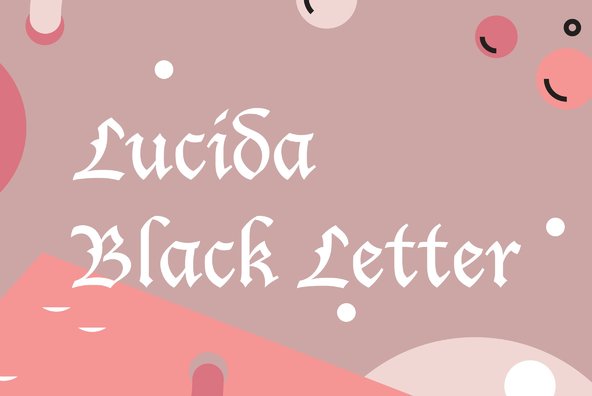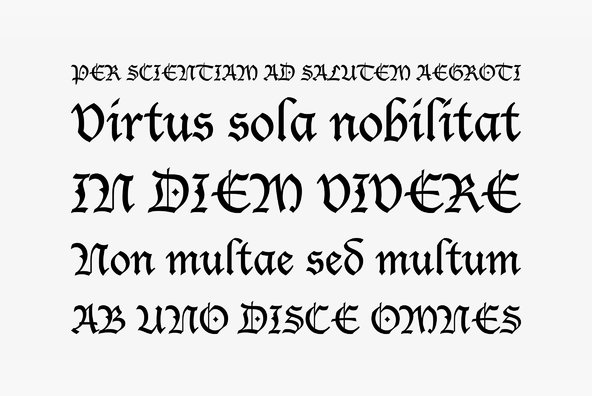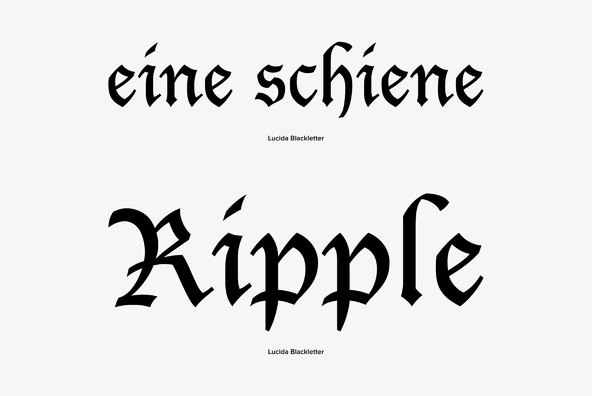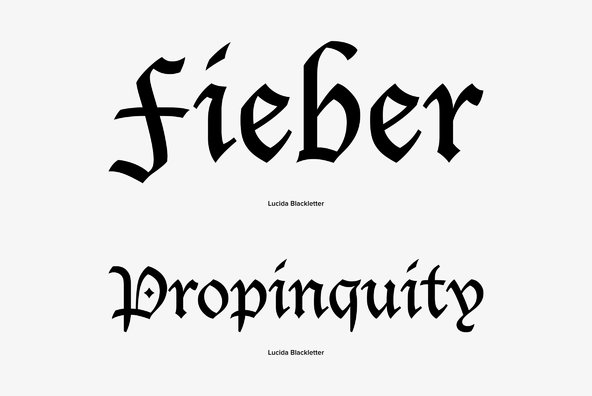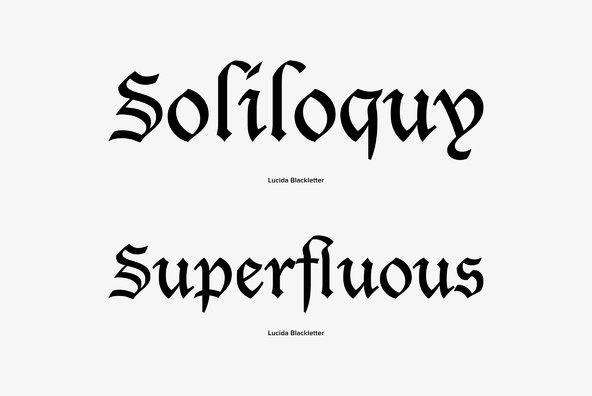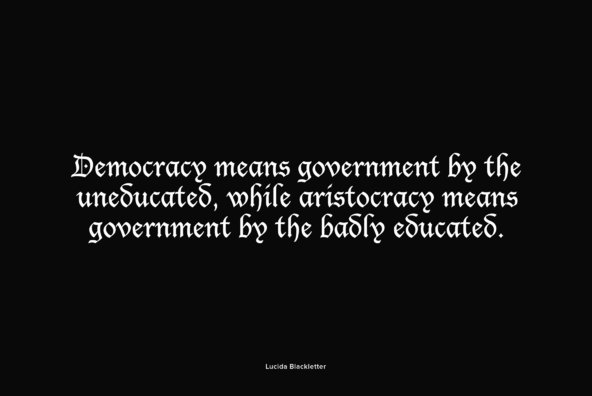
Designed by Charles Bigelow and Kris Holmes in 2003, Lucida Blackletter is a decorative blackletter font release by URW. Contains language support for West, East, Turkish, Baltic, and Romanian.